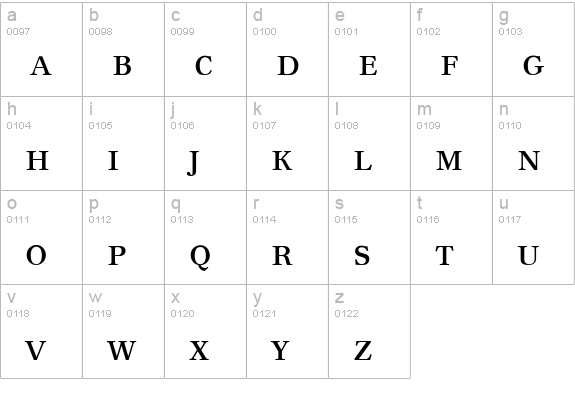
Cremona Expert Regular is the standard, neutral variant in the Cremona typeface family \xE2\x80\x94 well suited to general body text, paragraphs, and standard typographic work.
Cremona Expert Regular font is a timeless and elegant typeface designed for professional use. Its clean lines and classic serif style make it perfect for a wide range of design projects, from branding to editorial design. This versatile font exudes sophistication and refinement, making it ideal for conveying a sense of authority and quality. What sets Cremona Expert Regular font apart is its exceptional legibility and readability, ensuring that your message will be communicated clearly and effectively. Whether used for body text or headings, this font maintains its clarity and impact across different sizes and mediums. And the best part? Cremona Expert Regular font is available for free download at FontsMarket.com. Now you can elevate your design projects with this premium font without breaking the bank. Don't miss out on this opportunity to add a touch of class to your designs with Cremona Expert Regular font.